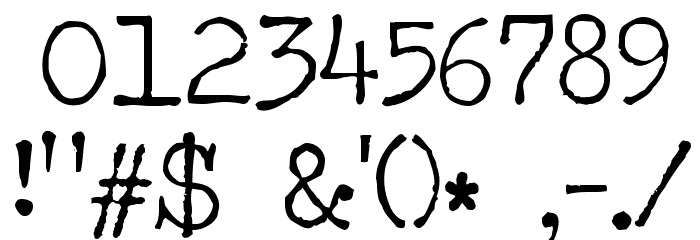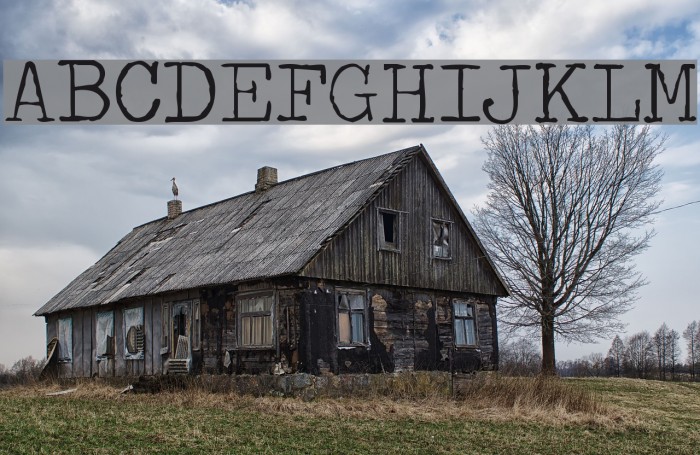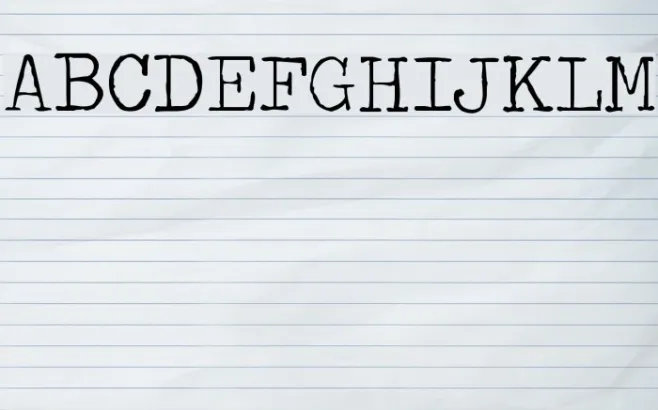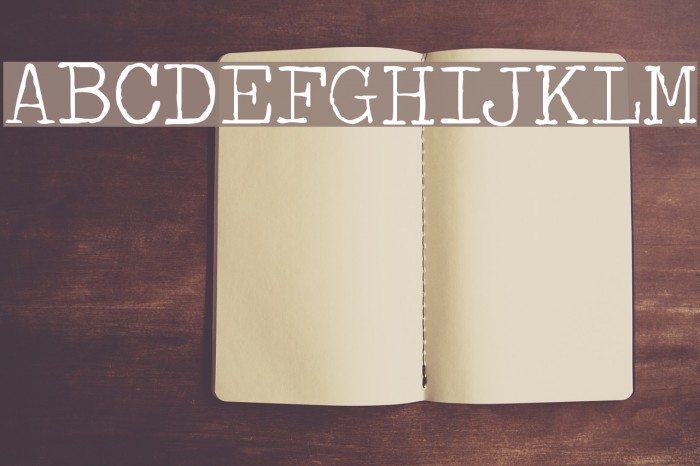
Traveling _Typewriter Font
Traveling _Typewriter Description
This typewriter-inspired font exudes a nostalgic charm reminiscent of vintage mechanical typewriters. The characters are monospaced, giving each letter a uniform width, which is characteristic of traditional typewriter fonts. The slightly irregular edges and subtle imperfections add to its authentic, worn look, evoking a sense of history and timelessness. The uppercase and lowercase letters maintain a consistent style, with rounded edges and a slightly distressed appearance. Numerals and special characters follow the same design ethos, ensuring a cohesive look across all text elements.
| Overall Style | Vintage |
| Use Case | Headlines, Logos, Creative writing |
| Proposed Projects | Ideal for projects that require a retro or vintage aesthetic, such as historical documents, typewriter-themed designs, or creative writing projects. |